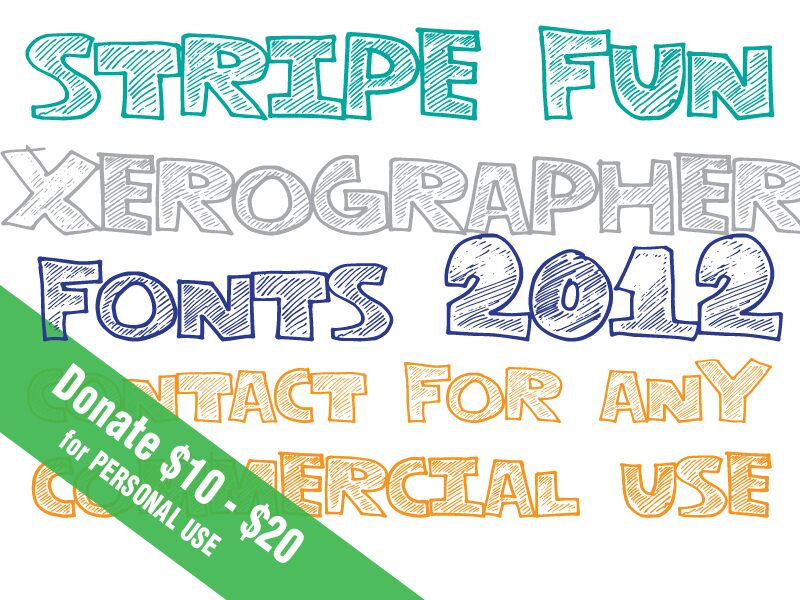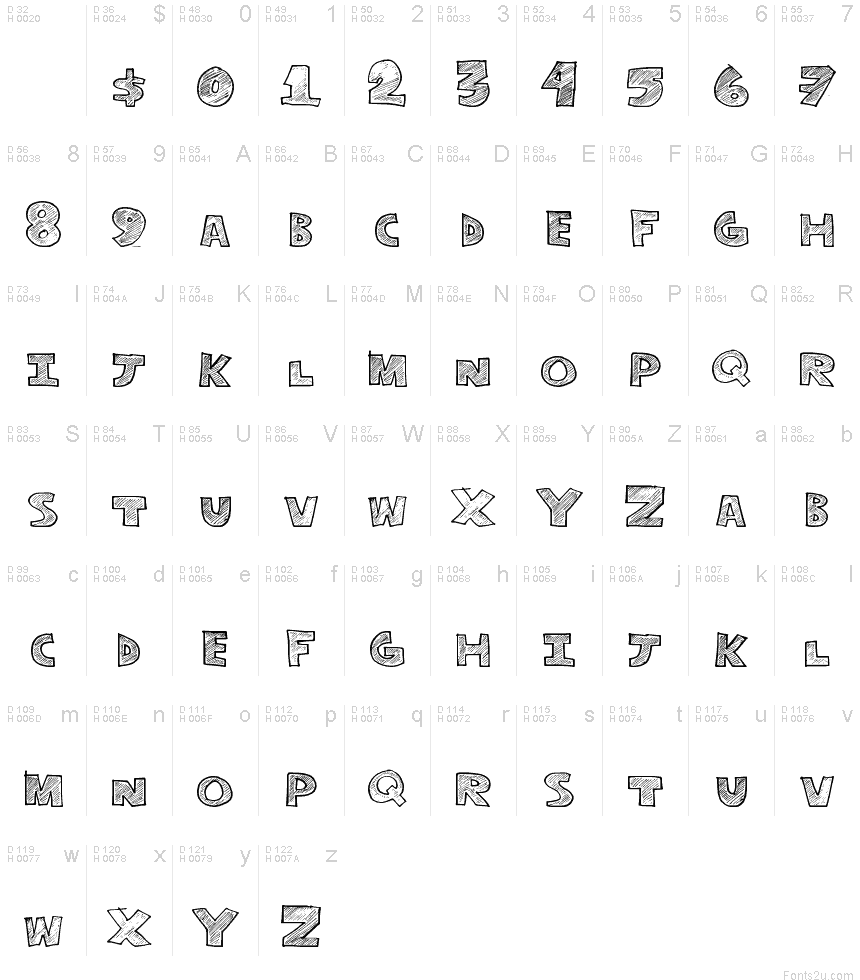
Stripe Fun from Xerographer Fonts is a free cartoon display font with broad, hand-drawn capitals and a lively outlined build. Each letter carries loose diagonal hatching inside its face, recalling marker shading in a comic sketch. The uneven contours, tilted joins, and changing widths keep the lettering rough and animated rather than mechanically clean, with small bumps along the edges.
Its hatched interiors connect directly with pen-and-ink illustration, making the font a natural fit for children's publishing, comic posters, and playful snack packaging where the words can become part of the drawing. Event graphics and novelty merchandise also suit its handmade humor.